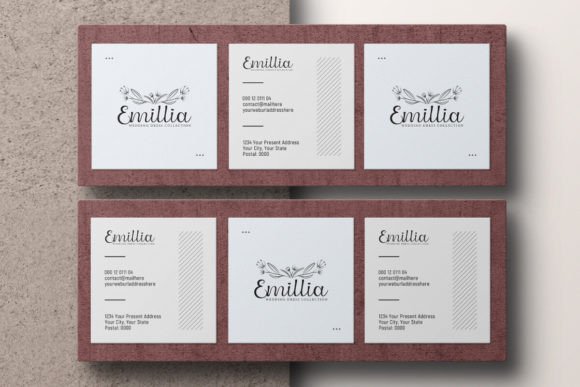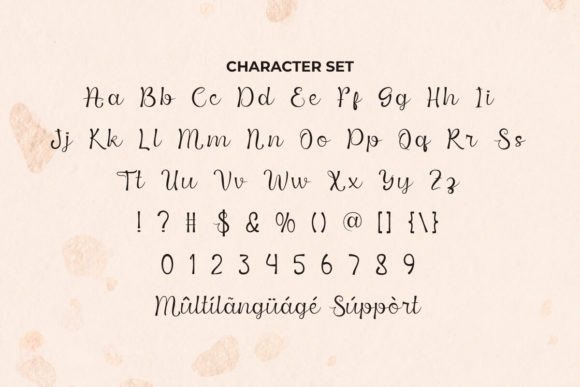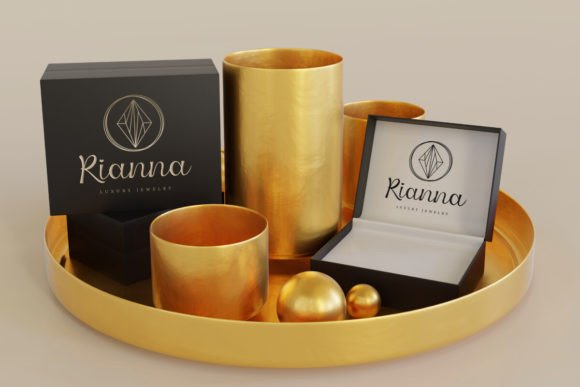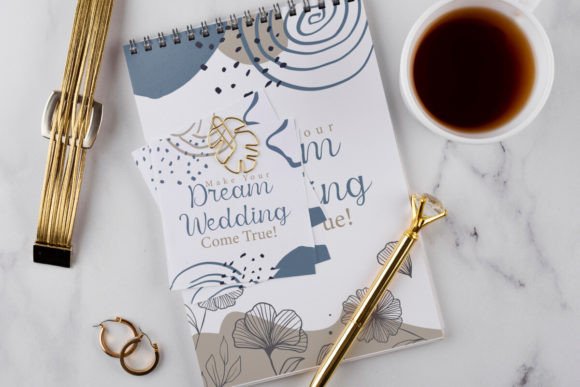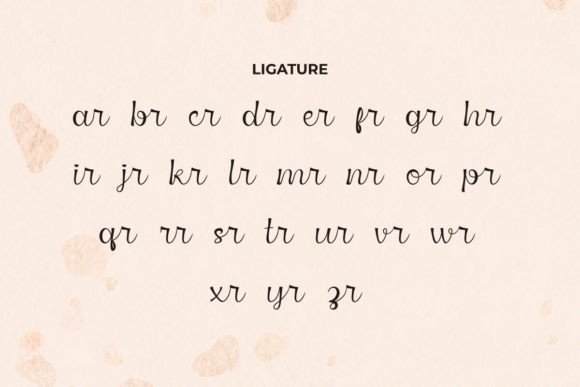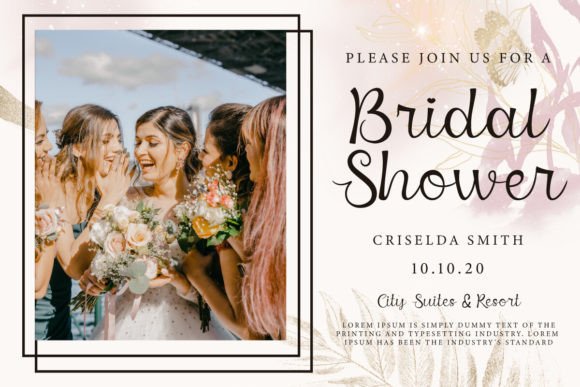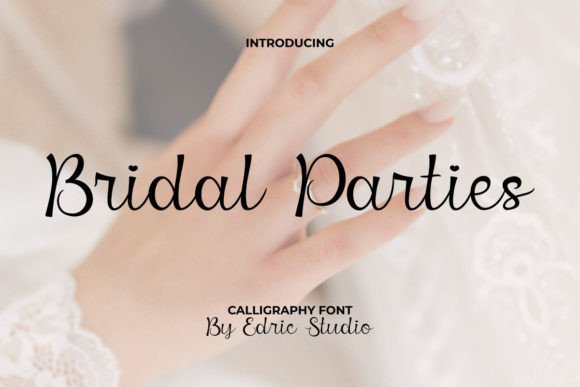
Bridal Parties Font: Elevate Your Designs with Elegance and Sophistication
Are you a designer or crafter looking for a font that exudes elegance and sophistication? Look no further than Bridal Parties Font, a beautiful calligraphy font that is perfect for adding a touch of femininity to any project. In this article, we’ll take a closer look at the features and benefits of Bridal Parties Font, and explore how it can elevate your designs to the next level.
A Font that Embodies Elegance and Sophistication
Bridal Parties Font is a stunning calligraphy font that is designed to evoke the feeling of luxury and refinement. Its elegant strokes and flowing lines make it perfect for any industry that requires a touch of sophistication, such as fashion, florist, furniture, jewelry, photography, spa salon, wedding organizer, and writer. Whether you’re creating a logo, invitation, or blog header, Bridal Parties Font is sure to make a lasting impression.
Comprehensive Character Set
One of the standout features of Bridal Parties Font is its comprehensive character set. The font comes with a full set of uppercase and lowercase basic characters, numbers, a large range of punctuation and symbols, and ligatures. This means that you have everything you need to create beautiful, professional-looking text at your fingertips. The character set is perfectly managed with well-spaced and kerning, ensuring that your text looks polished and refined.
Bridal Parties Font is incredibly versatile, making it perfect for a wide range of projects. Whether you’re creating a blog header, brand logo, label, invitation, jewelry box, magazine, catalog, mobile app, custom design, quote, stationery, or title, this font is sure to deliver. The extended character set means that you can use it for a variety of applications, from short phrases to longer blocks of text.
Bridal Parties Font is a dream come true for designers and crafters. Its elegant and sophisticated design makes it perfect for creating beautiful, professional-looking projects that are sure to impress. Whether you’re a seasoned designer or just starting out, this font is easy to use and can help you to create stunning text that elevates your designs.
Benefits of Using Bridal Parties Font
So why choose Bridal Parties Font for your next project? Here are just a few benefits of using this beautiful calligraphy font:
• Elegance and sophistication: Bridal Parties Font exudes luxury and refinement, making it perfect for high-end projects.
• Versatility: The font can be used for a wide range of projects, from blog headers to jewelry boxes.
• Comprehensive character set: The font comes with a full set of characters, numbers, and symbols, making it easy to create professional-looking text.
In conclusion, Bridal Parties Font is a beautiful calligraphy font that is perfect for designers and crafters looking to add a touch of elegance and sophistication to their projects. With its comprehensive character set, versatility, and ease of use, this font is sure to become a go-to choice for anyone looking to create stunning text. Whether you’re creating a logo, invitation, or blog header, Bridal Parties Font is sure to deliver.